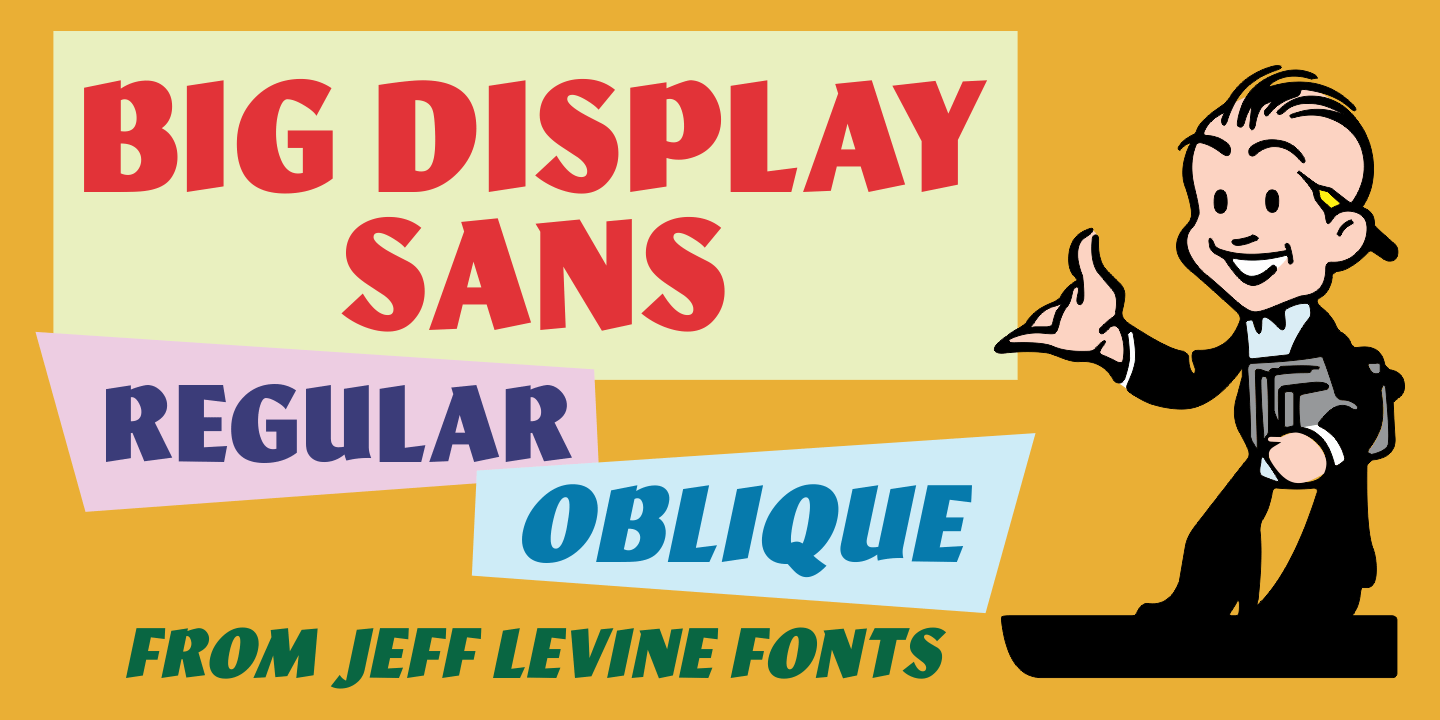
Big Display Sans
Big Display Sans JNL is an all-caps version of Ludlow’s metal type “Samson”, originally designed by Robert Hunter Middleton in 1940.
This digital version is available in both regular and oblique versions.